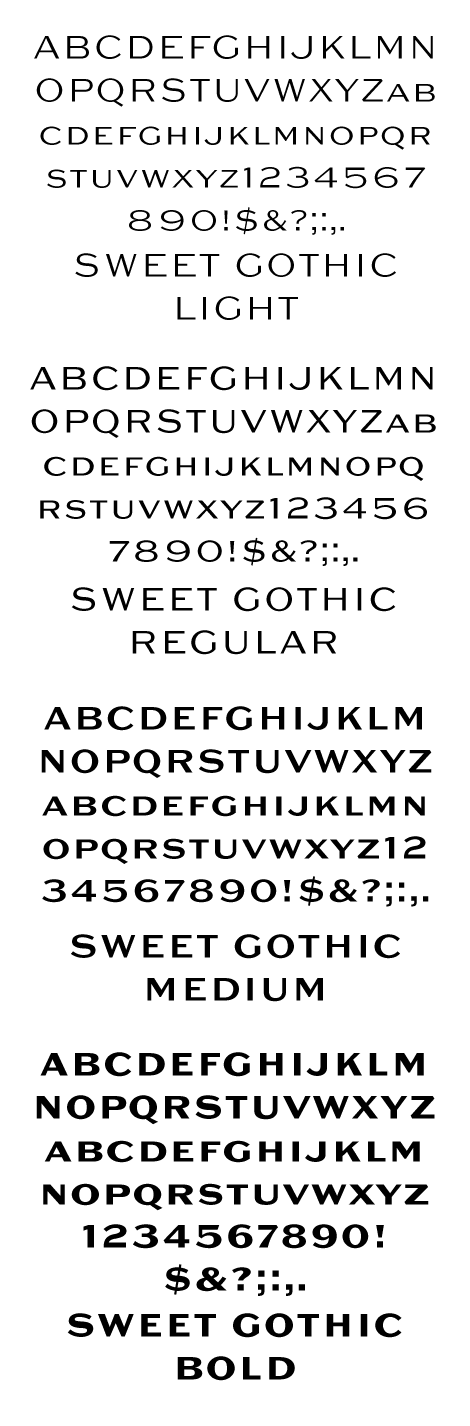
Sweet Fonts Collection is a growing range of engraving lettering styles from the 20th Century. With the advent of the engraving machine (a pantograph device) around 1900, commercial engraving moved from the use of hand-cut plates to the use of masterplates (lettering patterns). Lettering was traced from the masterplate using the engraving machine, letter by letter, onto a coated steel plate, that would then be etched in a chemical bath. The resulting plate was used to print engraved stationery with the raised print distinctive to the process. Many of these lettering styles were used for decades for commercial and social applications (letterheads, wedding invitations, etc.), but as they were merely traced alphabets, were not “fonts”. Many remain unavailable in digital form. Over time, a number of the most popular styles were adapted to phototype, which sped up the process of plating for engraving, avoiding the need to trace each letter by hand with the engraving machine. Later, when type went digital, these phototype fonts were revived as digital fonts. As a result, the styles offered by engravers narrowed over time, as has the range of engraving styles revived in digital form. The Sweet Fonts Collection represents an effort to locate and revive obscure, engraved lettering styles that are at risk of fading away, as well as to re-interpret familiar designs for broader application. Sweet Fonts Collection. Published by MVB Fonts, San Francisco Bay Area, California. TEL: 510 525-4288View other fonts from Sweet
Sweet Gothic is the latest addition to the Sweet Collection of engraved lettering styles from the 20th Century. Sweet Gothic Light is closely based on lettering from an engravers pattern from the early 1900s that was used for tracing letterforms with the engraving machine (pantograph) to make steel engraving plates. The design is related to many similar engravers gothics developed in the early 1900s, but as each engraving house created by hand their own patterns for popular styles of the time, there is variation among the models. Sweet Gothic offers contrast in stroke weight and its unique personality. The bolder weights are new designs, based on the characteristics of the Light. A serif variant (Sweet Gothic Serif) has also been developed to expand the usefulness of the family, offering an alternative to Copperplate Gothic. As such, most of the fonts are new designs, yet may seem familiar and ubiquitous given their model. The fonts offer two sizes of figures and monetary symbols: one set is intended for use with upper- and lowercase settings; the second set is the same height as the small caps. The Sweet Collection has acquired a treasure trove of vintage engraving master patterns, and is actively interpreting these historical letterforms as digital type.Sweet Fonts Collection End User License Agreement